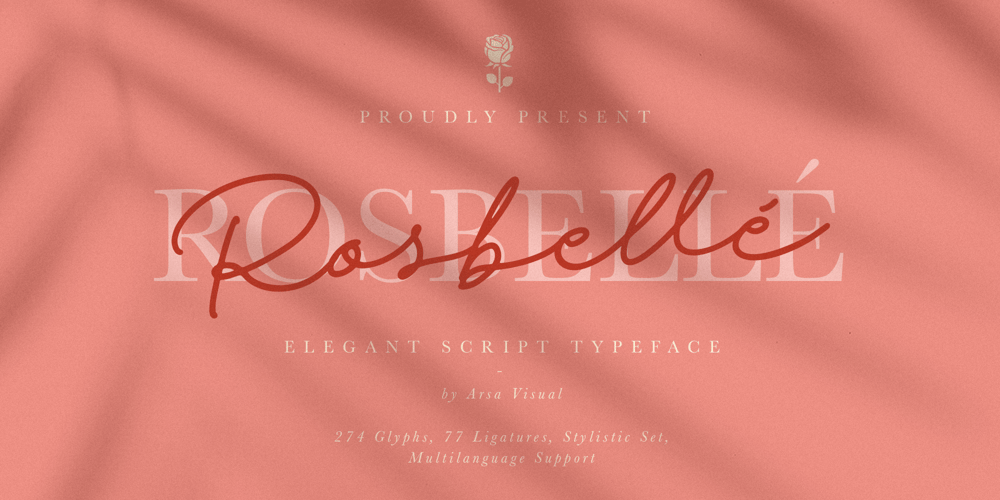
Rosbelle
Rosbelle font
Rosbelle Font Family was designed by I Gede Sugiantara and published by Arsa Visual. Rosbelle contains 1 styles and family package options. Introducing the Rosbellé Elegant Script Typeface. This elongated signature script made with consistent strokes so as to produce works that will perfect your design.Rosbellé is very suitable for branding projects, logo, wedding designs, social media posts, advertisements, product packaging, product designs, label, photography, watermark, invitation and any projects that need handwriting taste or even feminine tattoo designs!Feature and what inside: Uppercase and Lowercase Alternates Number and Punctuation Ligatures Multi Languages